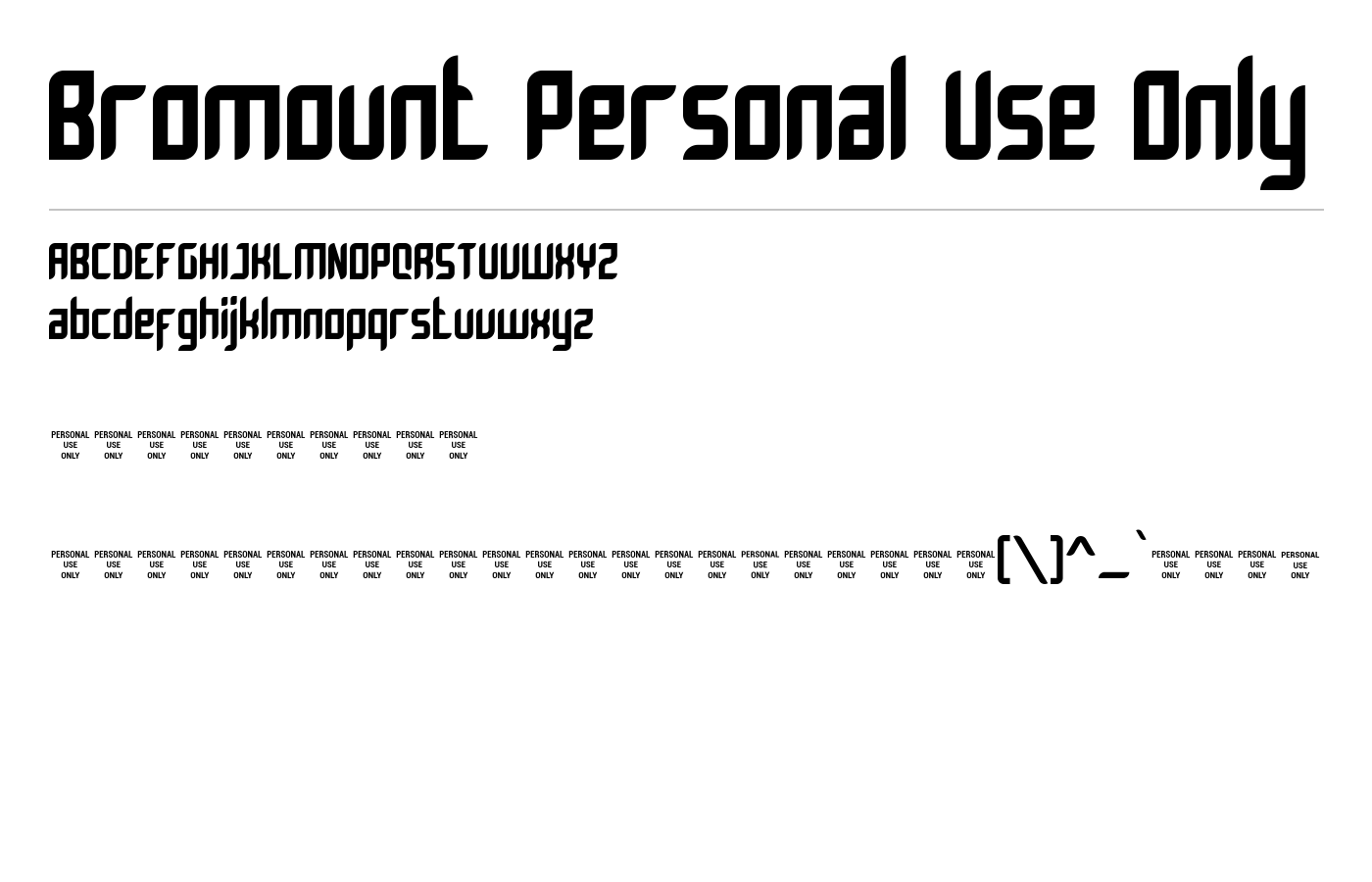
Bromount is a bold, condensed sans-serif font with a distinct geometric and futuristic style, characterized by sharp angles and a tall x-height that create a strong, modern presence. Its unique letterforms and consistent stroke weight make it ideal for eye-catching headlines, logos, and branding that seek a tech-savvy or avant-garde vibe. This font works especially well in display contexts where a bold, stylish statement is needed without sacrificing readability.
About Bromount Font